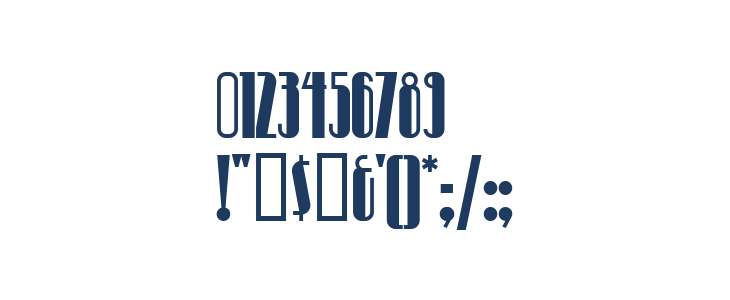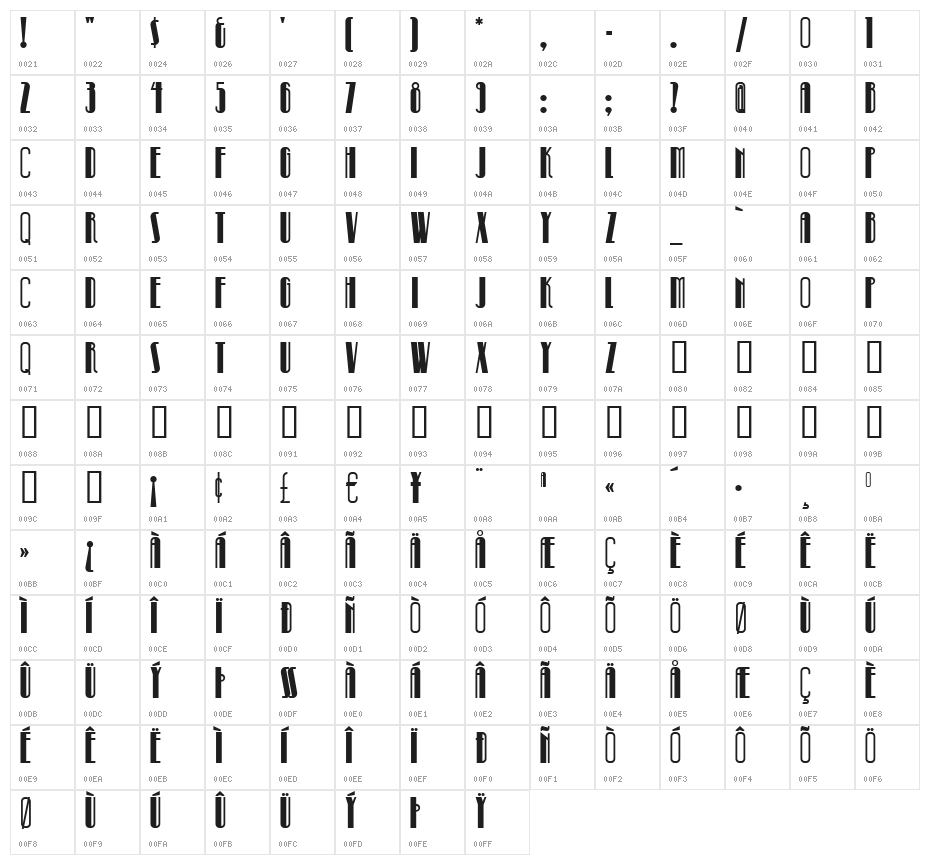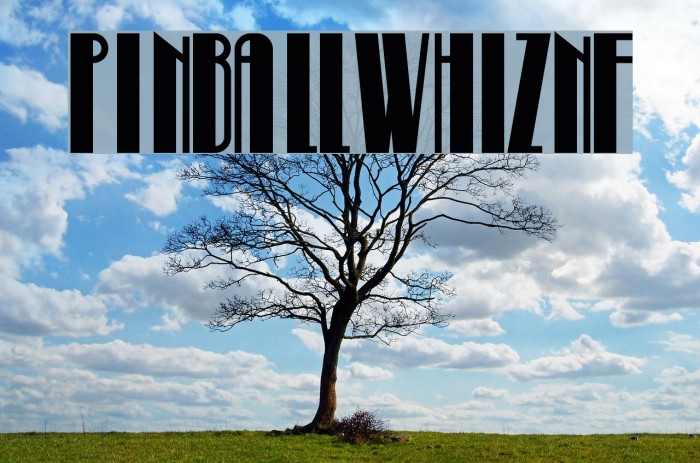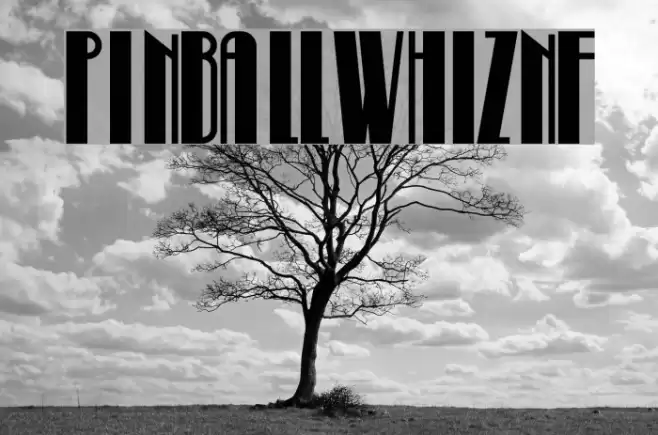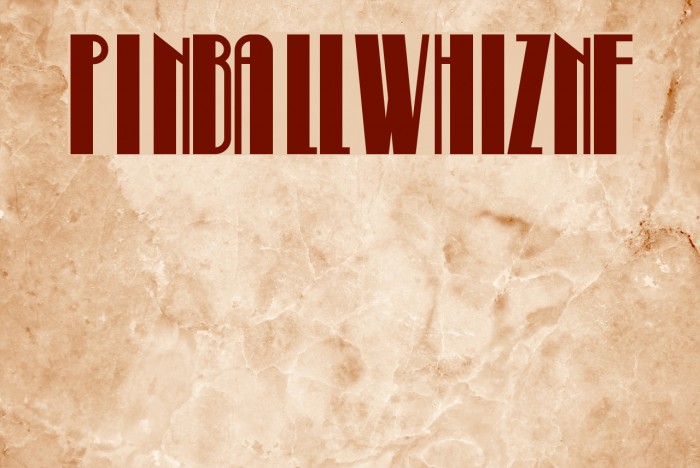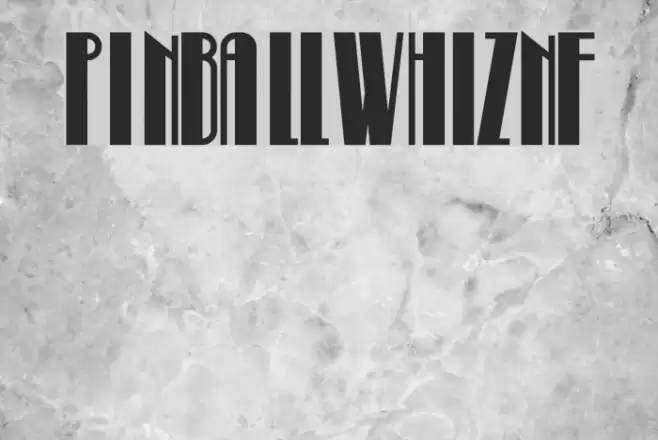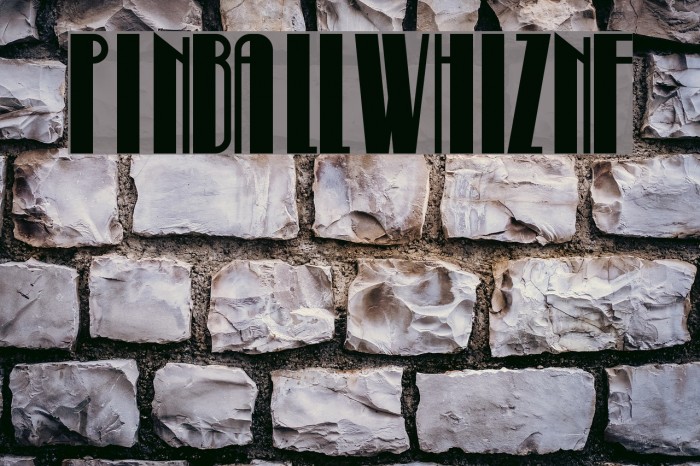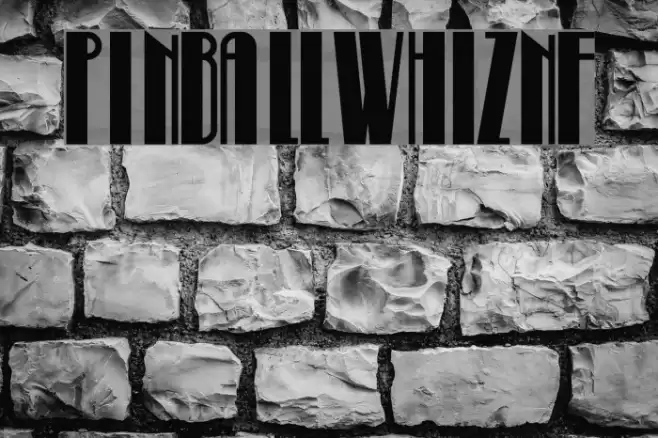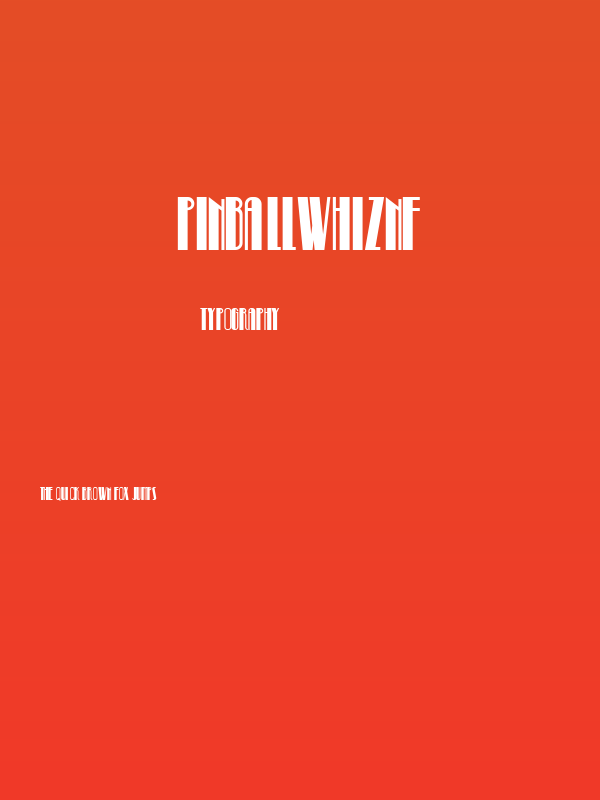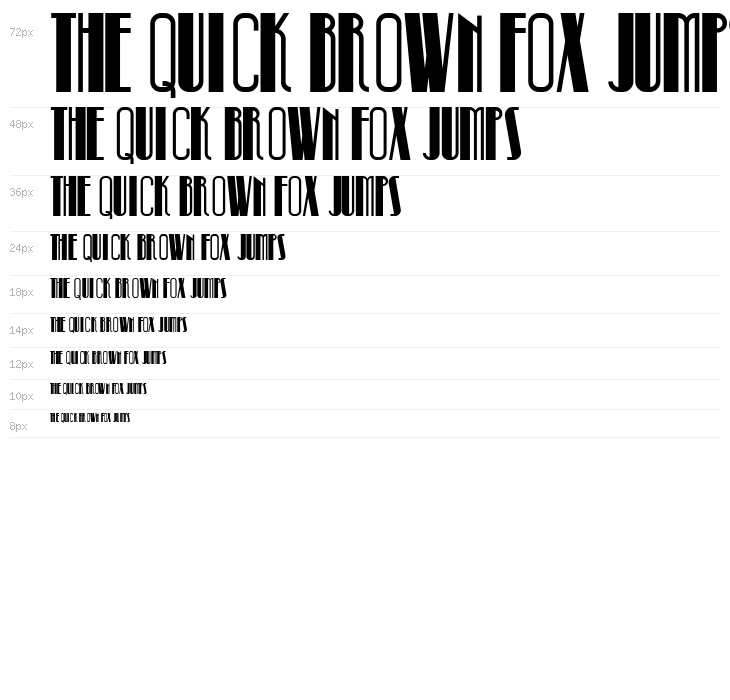
PinballWhizNF Font
PinballWhizNF Description
This font features a bold and striking design with tall, narrow characters that create a strong visual impact. The uppercase letters are particularly elongated, giving them a dramatic and elegant appearance. The font has a distinct Art Deco influence, characterized by its geometric shapes and clean lines. The numbers and special characters maintain the same tall and narrow style, ensuring consistency across all elements. The overall look is both vintage and modern, making it versatile for various design applications.
Overall StyleVintage, Modern
Proposed ProjectsIdeal for posters, logos, and branding projects that require a bold and stylish statement.